Huracán Abatido
Colombian based Laura Alejandra uses Sharp Roman beautifully for Huracán Abatido
Huracán Abatido is a personal project born from seasons of hurricanes and the research, introspection, and visual interpretation of the metaphor between natural and emotional phenomena generated during a storm system.
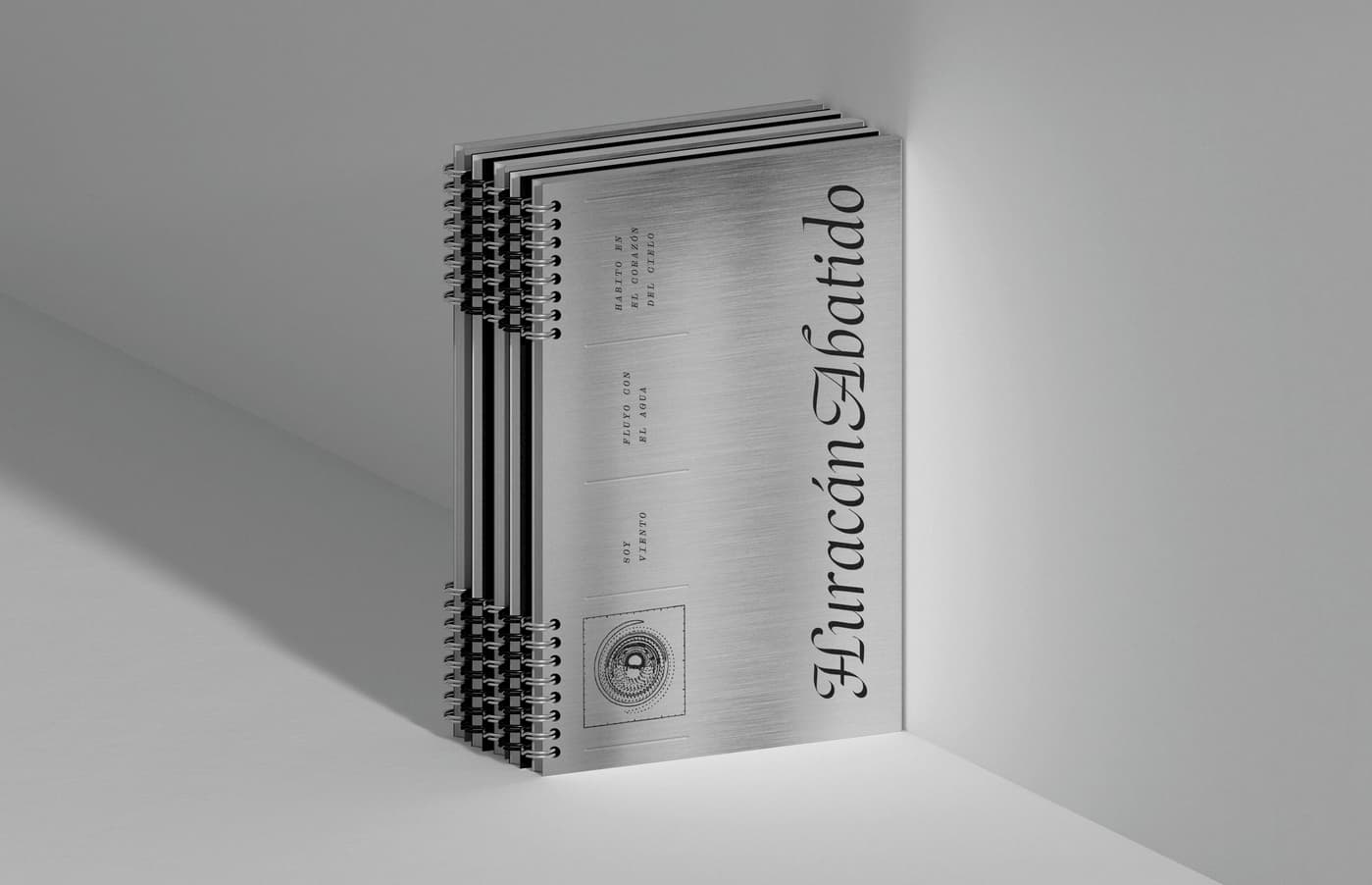
The texts in this publication are quotes and excerpts from literature, music, and emotions; the images and their sequence are also metaphorical.
As this is a publication that deals with intimate and introspective topics, I sought to use fonts with feminine aesthetics and lots of character that at the same time allowed for typographical games where the typography creates images and allows for a fluid reading of the compositions.
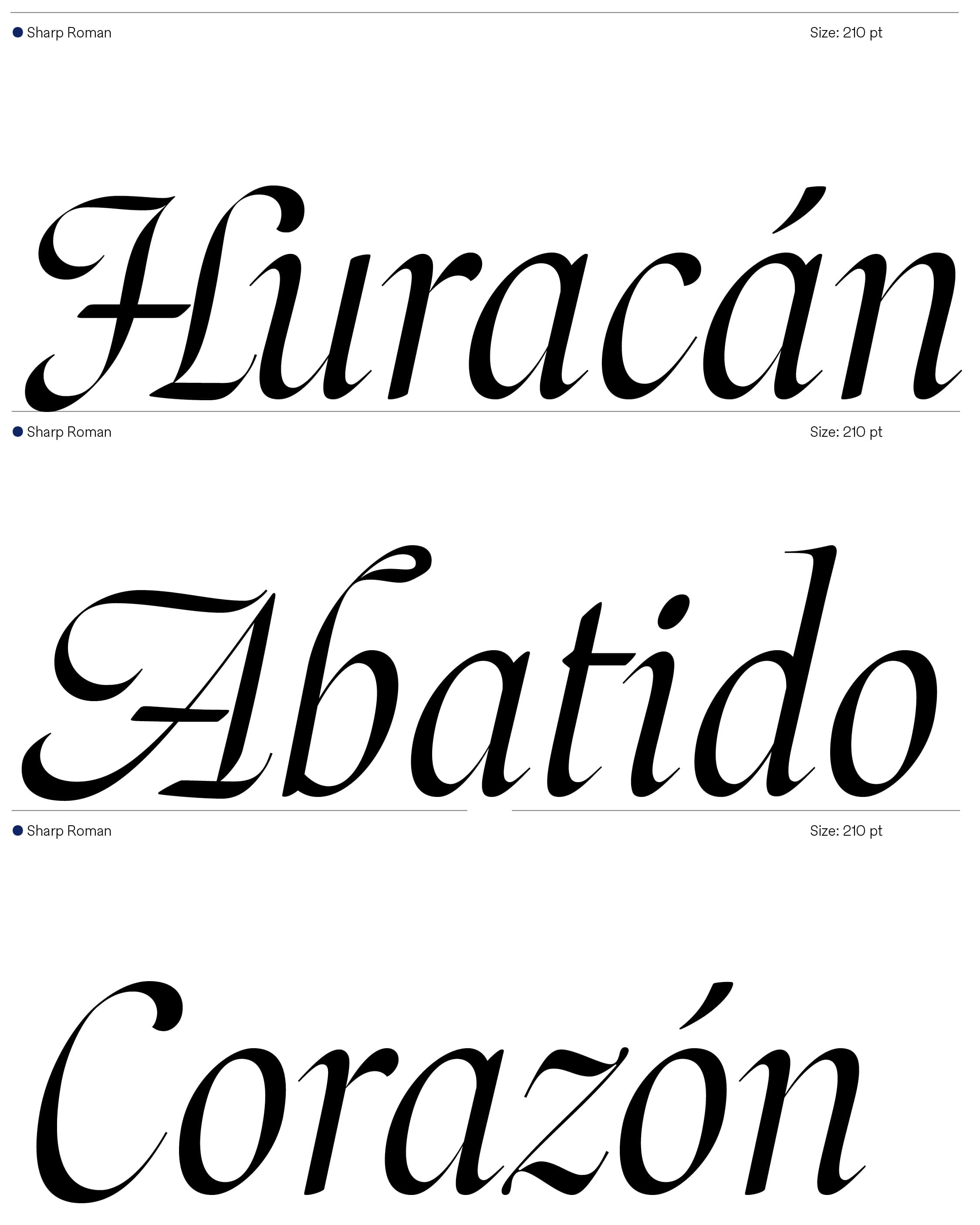
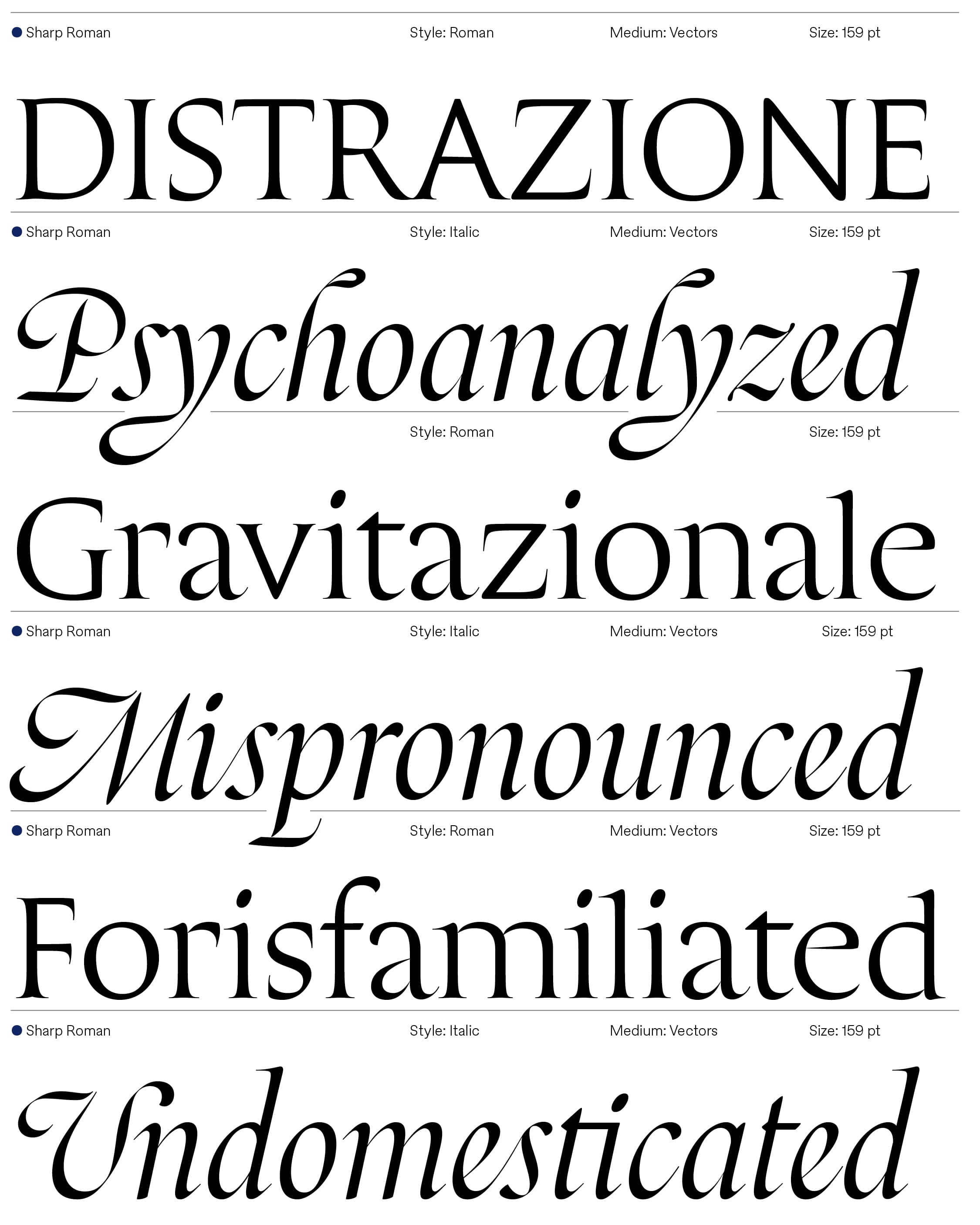
Sharp Roman Italic was used as the main font for large texts due to the beauty, sinuosity and curvature of its shapes, which emulate the movement of the winds; Droulers and HG Mincho were chosen to highlight texts since their angled ends and curved shapes complemented each other and gave a more daring character to the texts; finally Montagu Slab is used for longer body texts since it is very clear and easy to read.
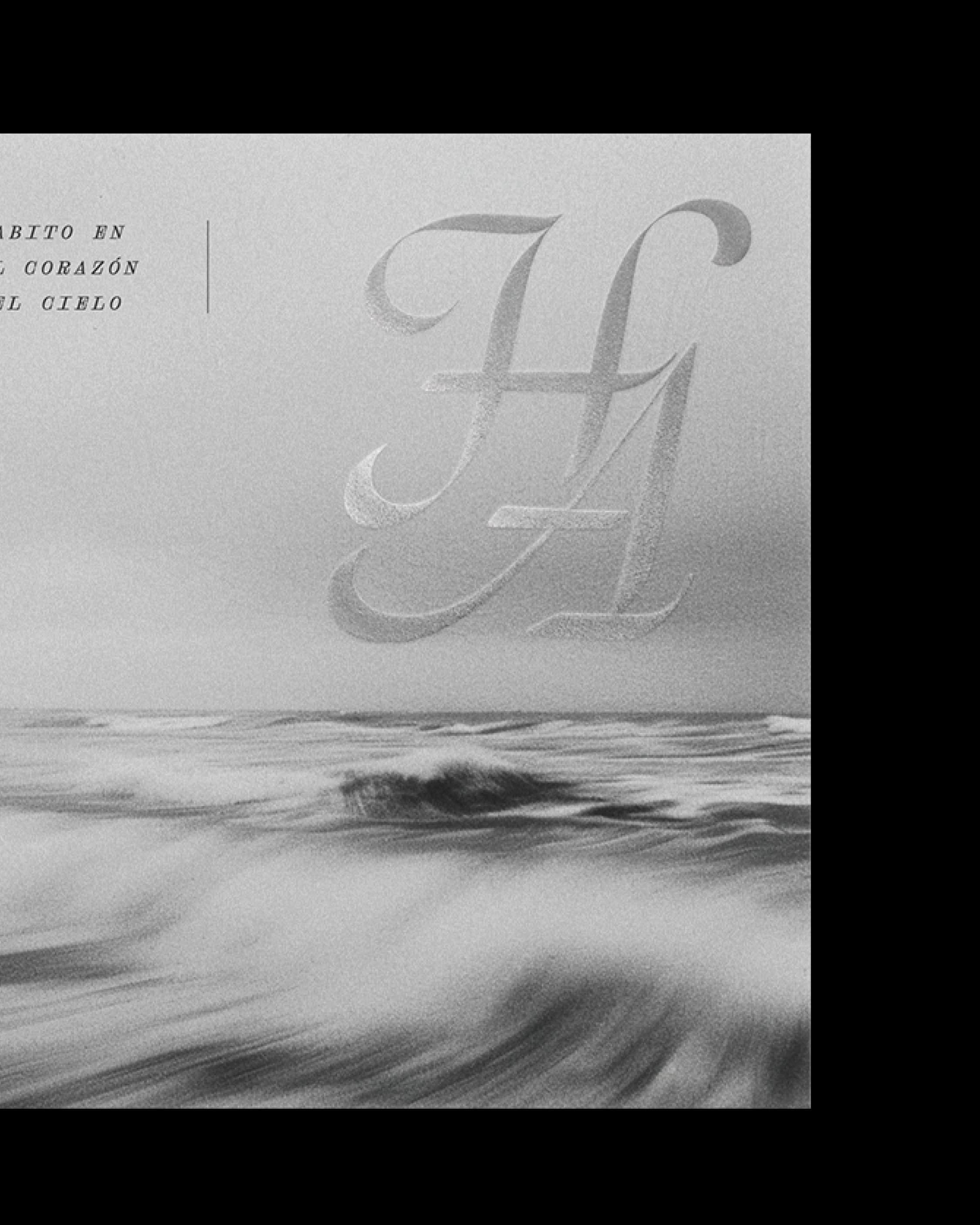
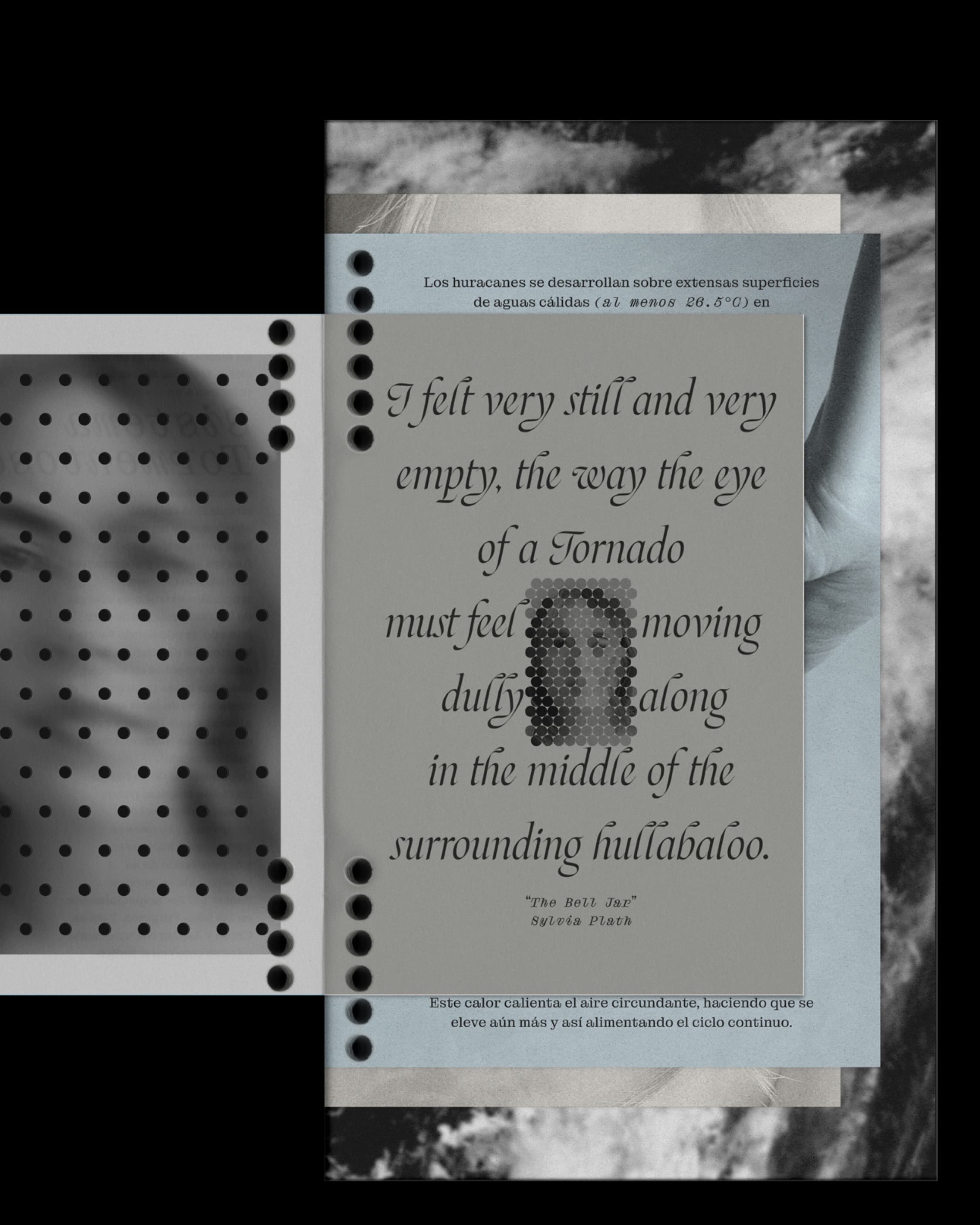
Huracán Abatido, a project winner of the Rayo de Oro award in the editorial category, in the Self-initiated Project subcategory.
A single copy of the publication was printed using home printers.